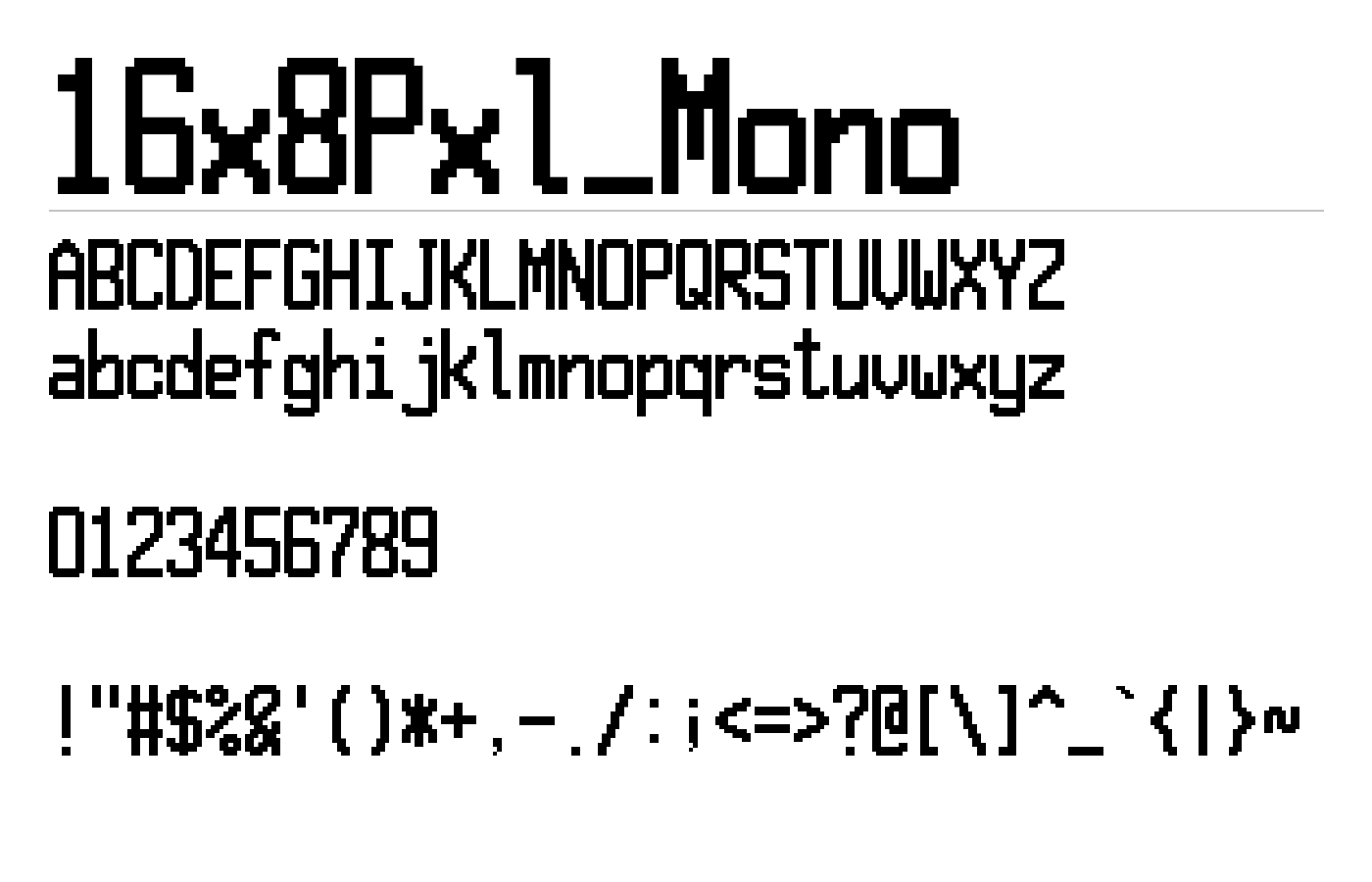
16x8Pxl_Mono is a pixelated, monospaced sans serif font with a retro, digital feel reminiscent of early computer screens or video games. Its blocky, uniform letterforms and minimal contrast make it perfect for tech, gaming, or coding projects that want to evoke nostalgia or a minimalist digital style. This font works best in headlines, user interfaces, and pixel art contexts where clarity and a vintage digital aesthetic are key.
16x8Pxl_Mono Font
About 16x8Pxl_Mono Font
| Font family | 16x8Pxl_Mono Font |
| Designer | corne2plum3 |